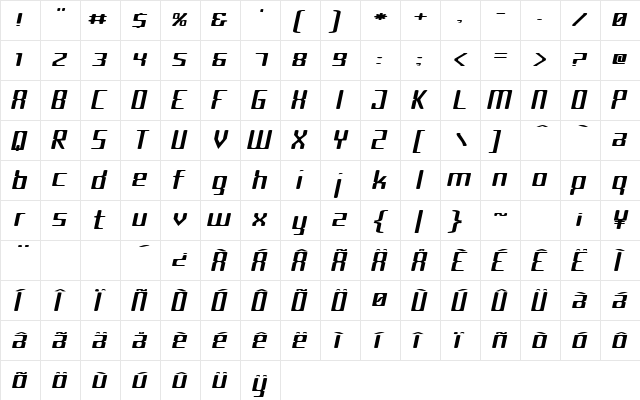
CyborgCondensed Oblique
Design Context for CyborgCondensed Typeface
CyborgCondensed takes a measured approach to typography — its balanced proportions and neutral character make it a reliable workhorse for both digital and print work. The dynamic lean of this cut emphasises speed and emphasis in any layout. Its narrow stance lets it pack a punch even in space-constrained designs.
Pro Tip: Use CyborgCondensed for emphasis, pull quotes, and subheadings where its slanted energy can add rhythm to the layout.